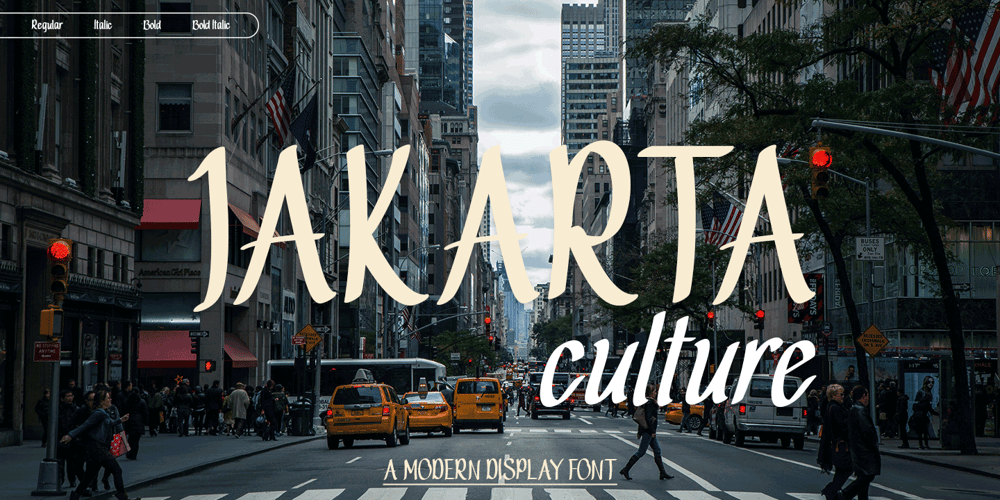
Jakarta Culture
Jakarta Culture font
Jakarta Culture Font Family was designed by Reza Haitami and published by Black Studio. Jakarta Culture contains 4 styles and family package options. Introducing Jakarta Culture,Thank you for visiting Jakarta Culture! A very fun yet elegant script font with lots of energy, it lets you create beautiful handcrafted typography in an instant. With extra curves & twists, Jakarta Culture is guaranteed to make your text stand out – perfect for logos, printed quotes, invitations, cards, product packaging, headers, weddings and anything else you can imagine.What’s really awesome is that Jakarta Culture comes with a full set of lowercase alternatives, which allow you to create more authentic custom-feel texts.This type has become the work of true love, making it as easy and fun as possible.I can’t wait to see what you do with Jakarta Culture! Feel free to use the #Black Studio tag and the #Jakarta Culture font to show what you’ve been up to, I really hope you enjoy it!Thank you!